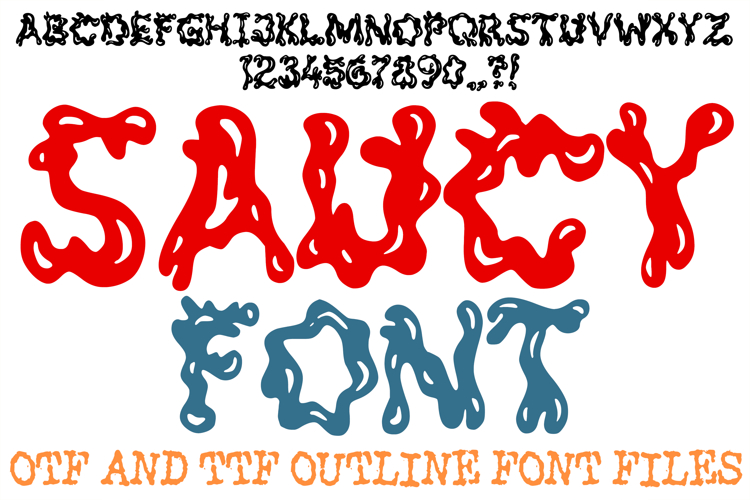
Saucy Splatter Alphabet Lettering Font Liquid ABC OTF
Add a bold, playful, and fluid energy to your typography with this creatively stylized display font. Every uppercase letter, number, and punctuation mark is uniquely shaped to mimic oozing liquid, thick splashes, and glossy saucy splatters. The design features thick, wavy outlines and dynamic bubble-like highlights that create an eye-catching 3D gloss effect, giving the typeface a fun, cartoonish look.
Ideal For Creative Assets & Crafting
Custom Merchandise: Perfect for creating standout graphics on graphic t-shirts, hoodies, and streetwear apparel.
Stickers & Decals: Design dripping vinyl decals for water bottles, skateboards, laptops, and journal covers.
Party & Event Signage: Great for food trucks, restaurant menus, youth events, or bold birthday party decorations.
Dynamic Branding: Elevate logos, social media banners, and product packaging for food brands, slime shops, or creative art studios.